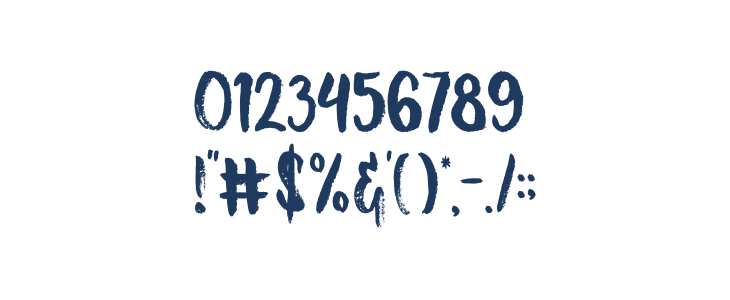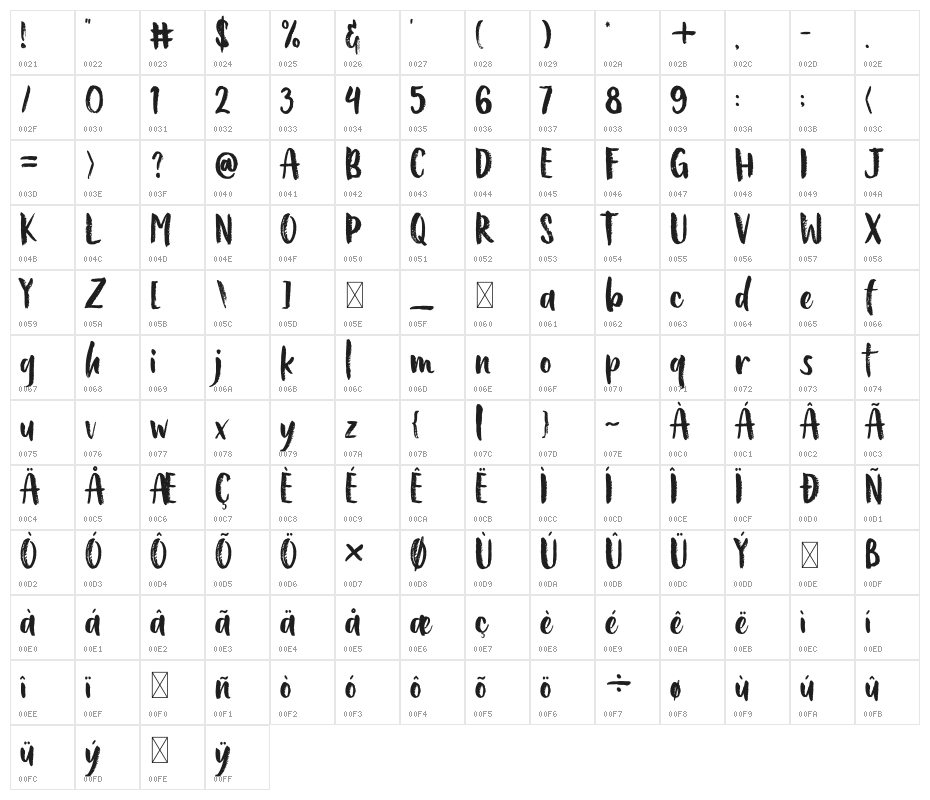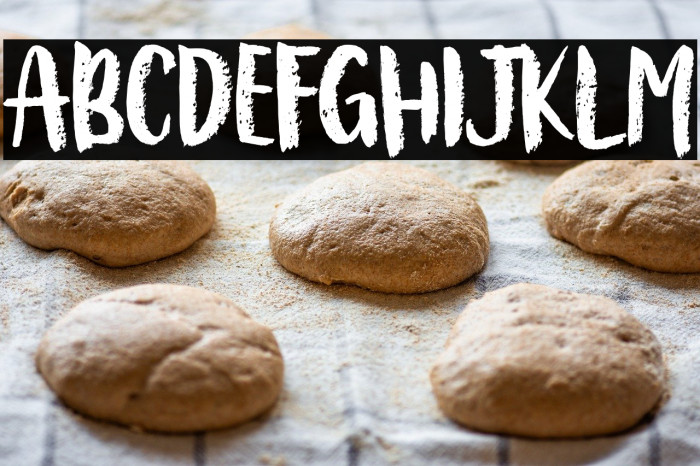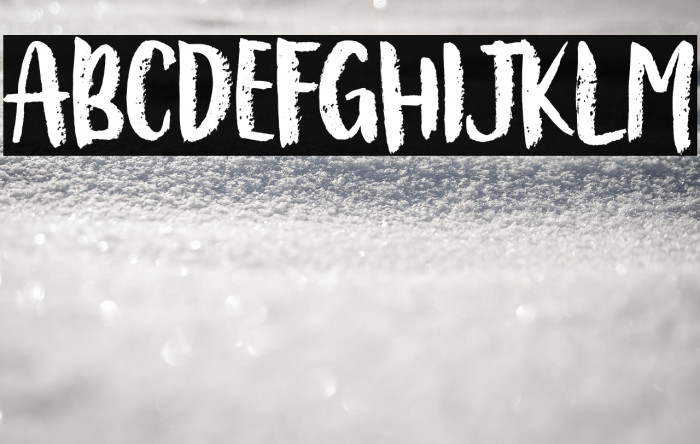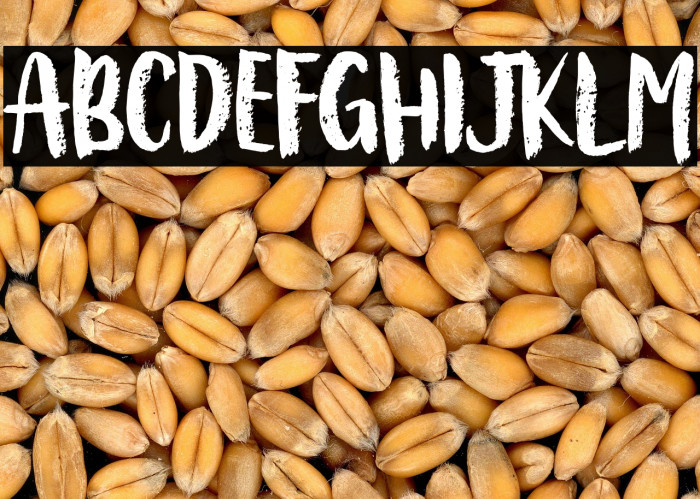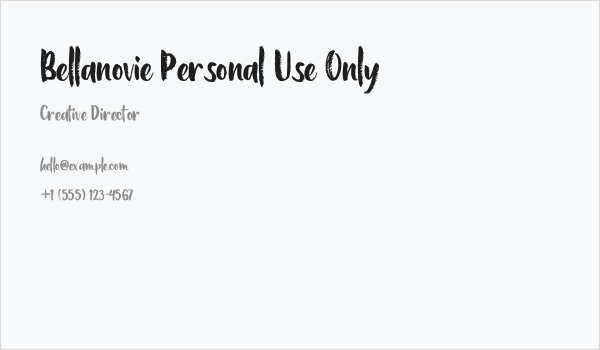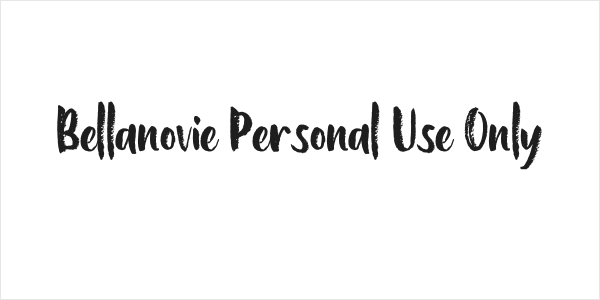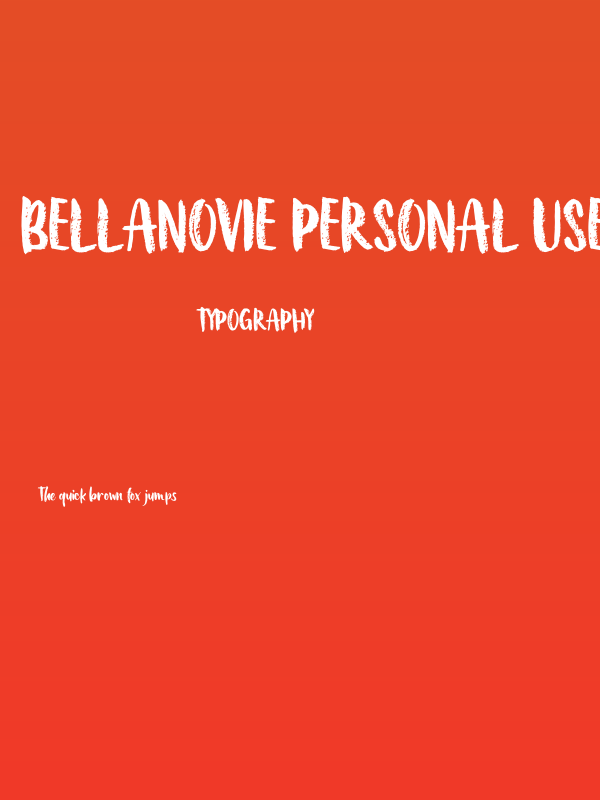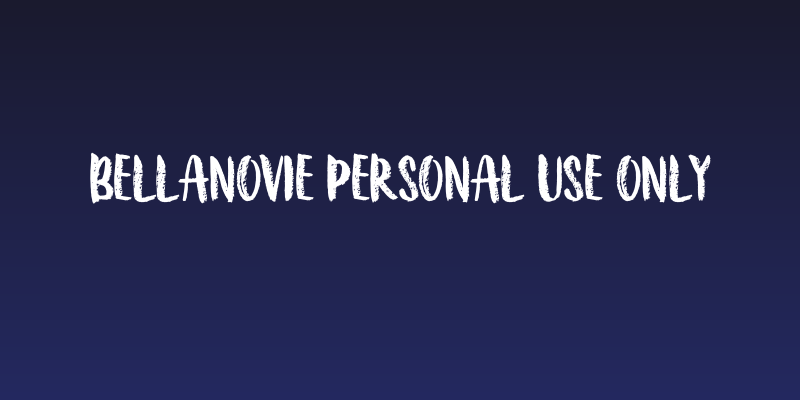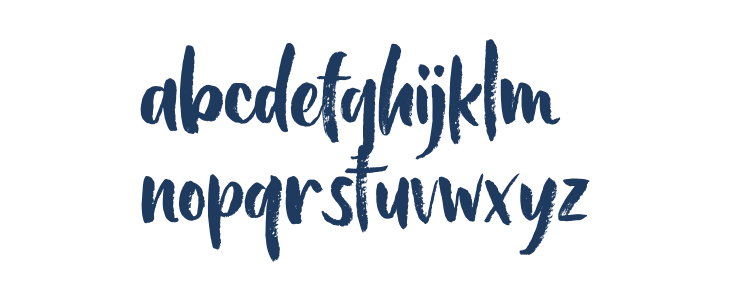
Bellanovie Personal Use Only Font
Bellanovie Personal Use Only Description
This font features a bold, brush-like appearance with a hand-painted aesthetic. The letters are thick and have a textured, rough edge that gives them a dynamic and energetic feel. The uppercase and lowercase letters maintain a consistent style, with a playful and informal look. The numbers and special characters follow the same design, ensuring a cohesive appearance across all glyphs. This font is ideal for projects that require a personal touch or a creative flair, such as posters, invitations, or branding materials.
Proposed ProjectsIdeal for creative projects like posters, invitations, and branding materials.